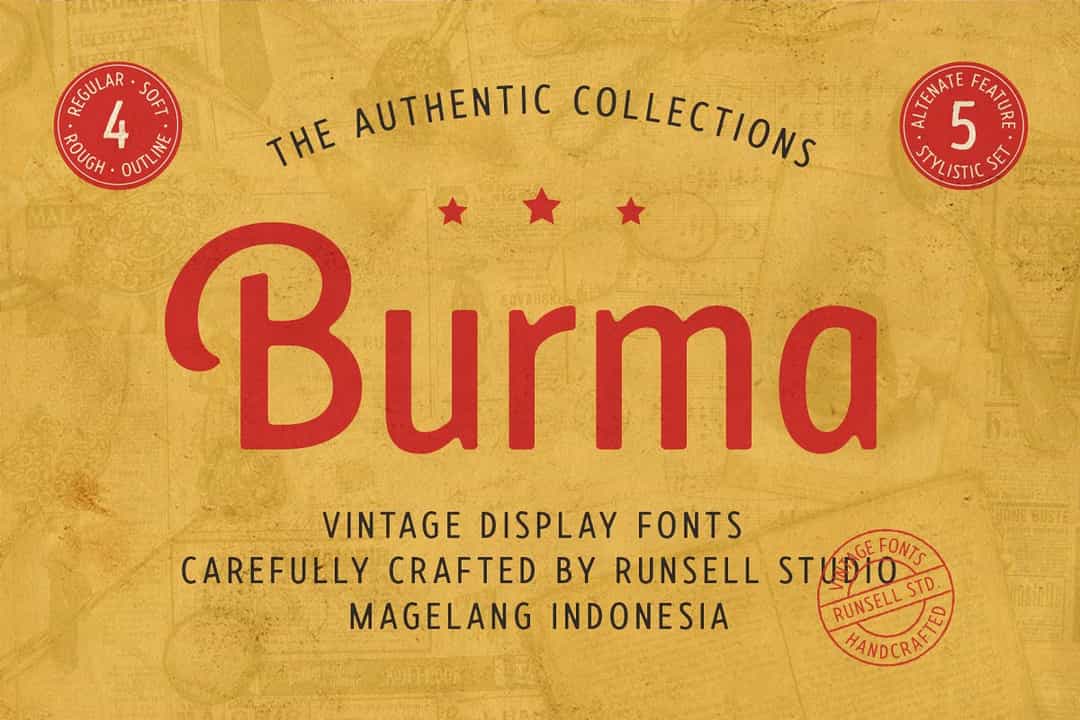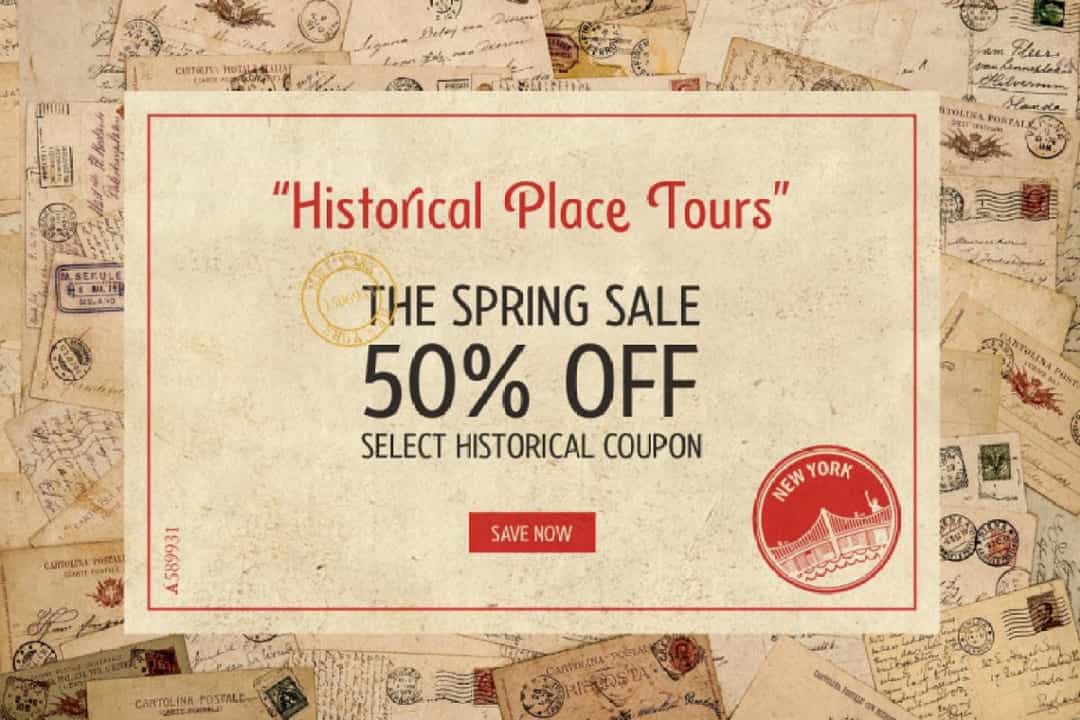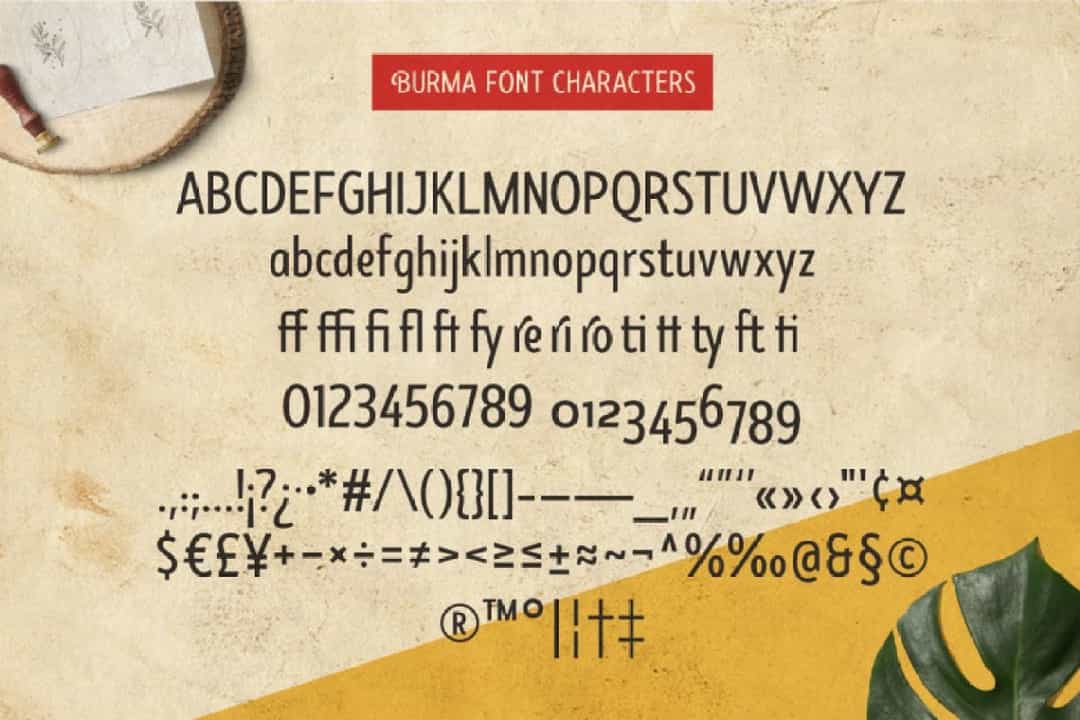
Burma is a perfect example of display sans serif typeface with vintage feel, which is based on the design of old labels. This font has four styles included in it; the regular rough, the soft and the outline styles. There are also the ligatures of course. The elements of Burma can be suitable for making posters, logotypes, packaging branding, quotes, badges, and custom projects.